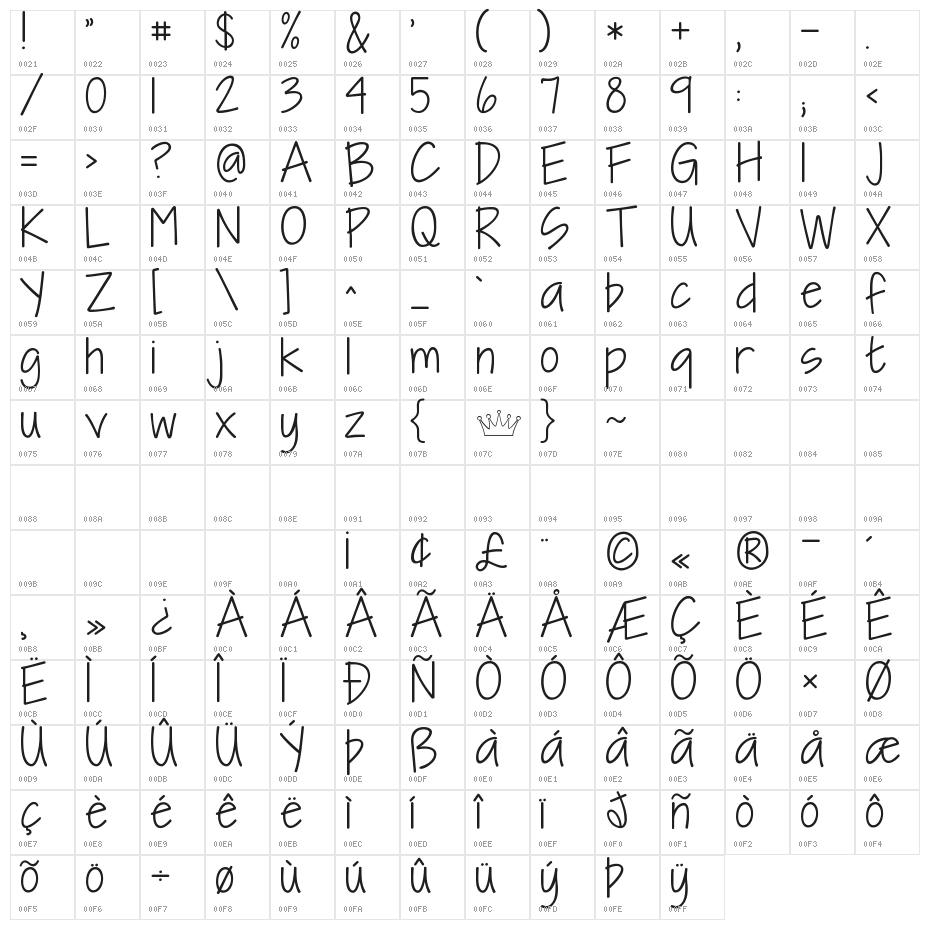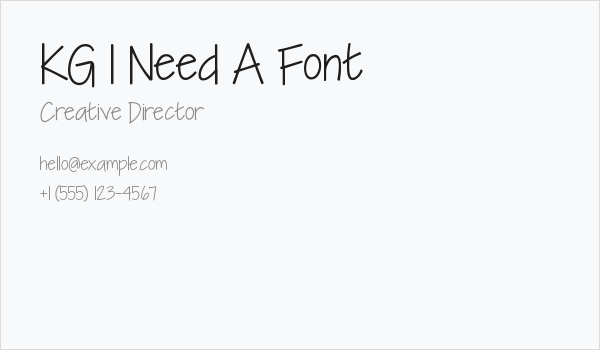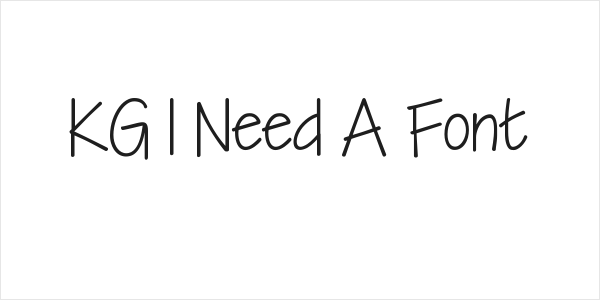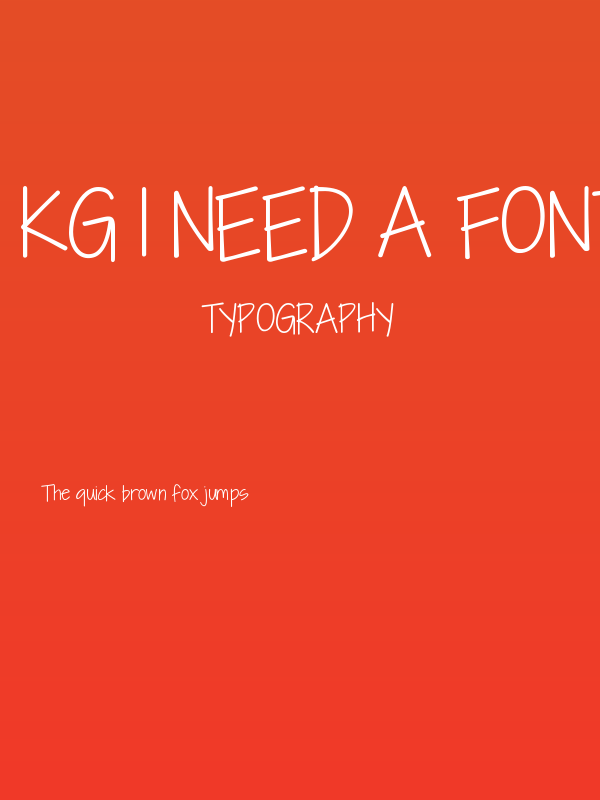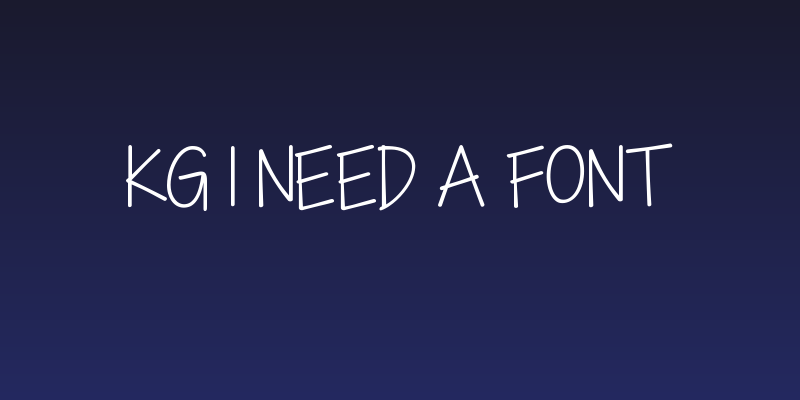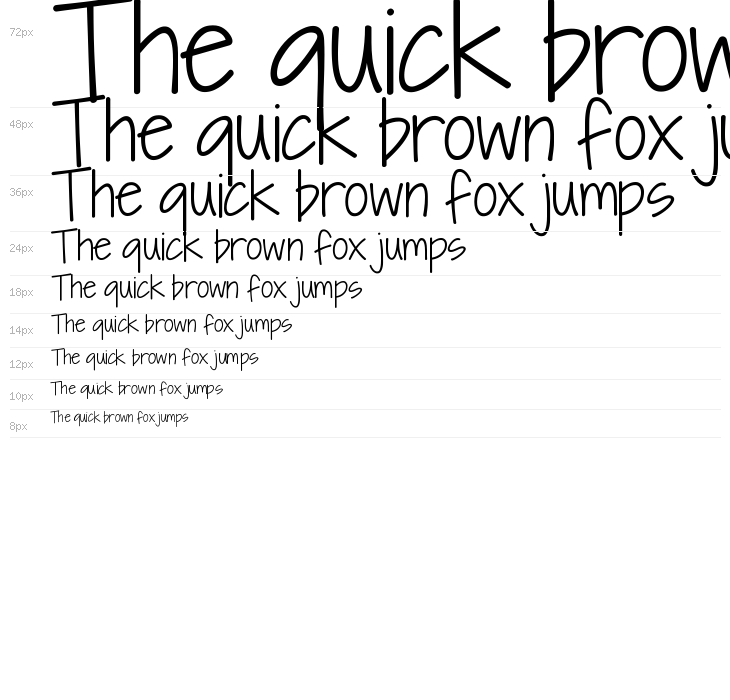
KG I Need A Font Font
KG I Need A Font Description
This playful and casual font features a handwritten style with a smooth, flowing appearance. The letters are slightly irregular, adding a personal touch that mimics natural handwriting. The uppercase letters are tall and slender, while the lowercase letters maintain a consistent height, creating a harmonious balance. The numbers and special characters follow the same playful style, making the font versatile for various uses. Its informal and friendly look is perfect for projects that require a personal or creative touch.
| Proposed Projects | Ideal for greeting cards, personal blogs, children's books, and creative branding. |